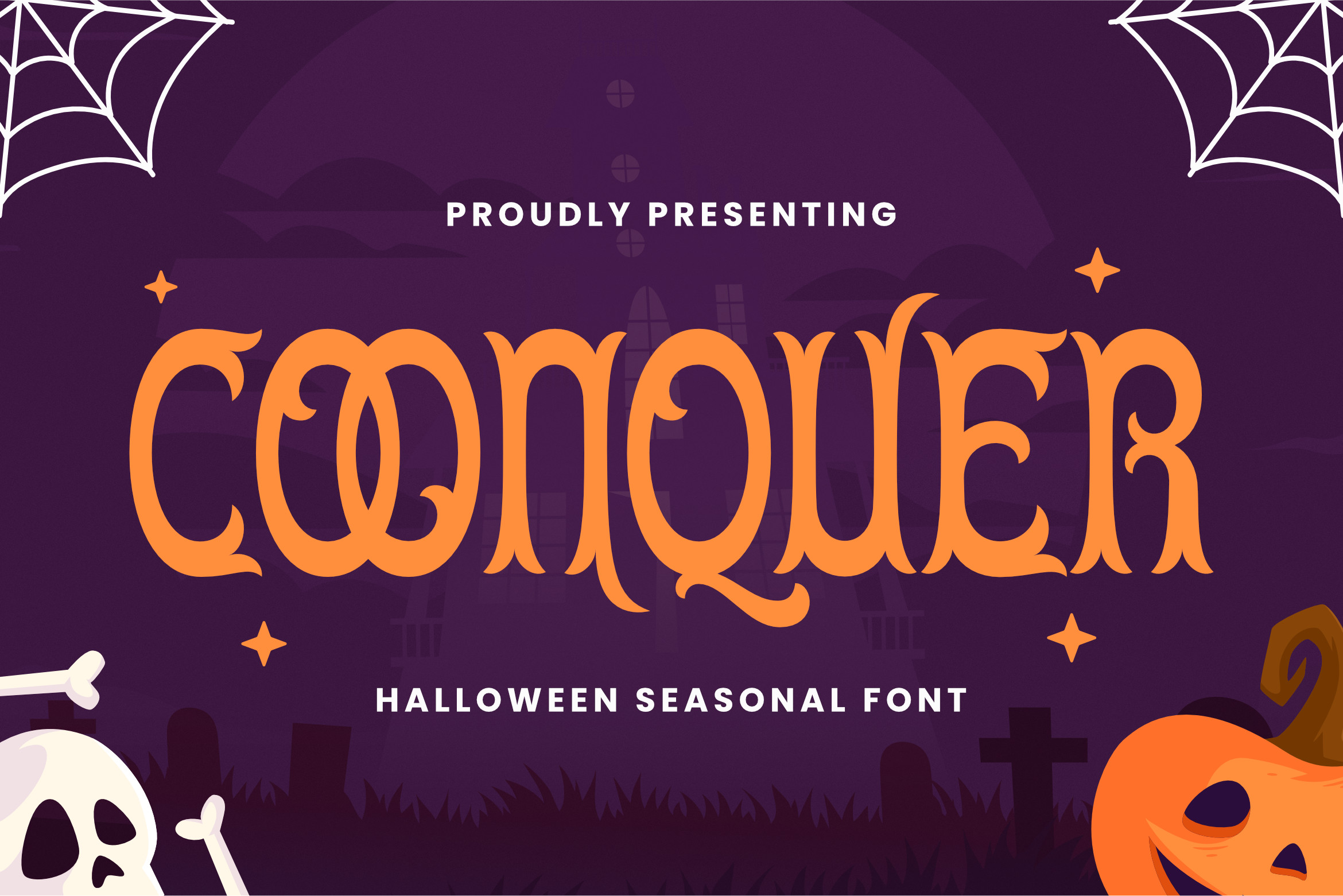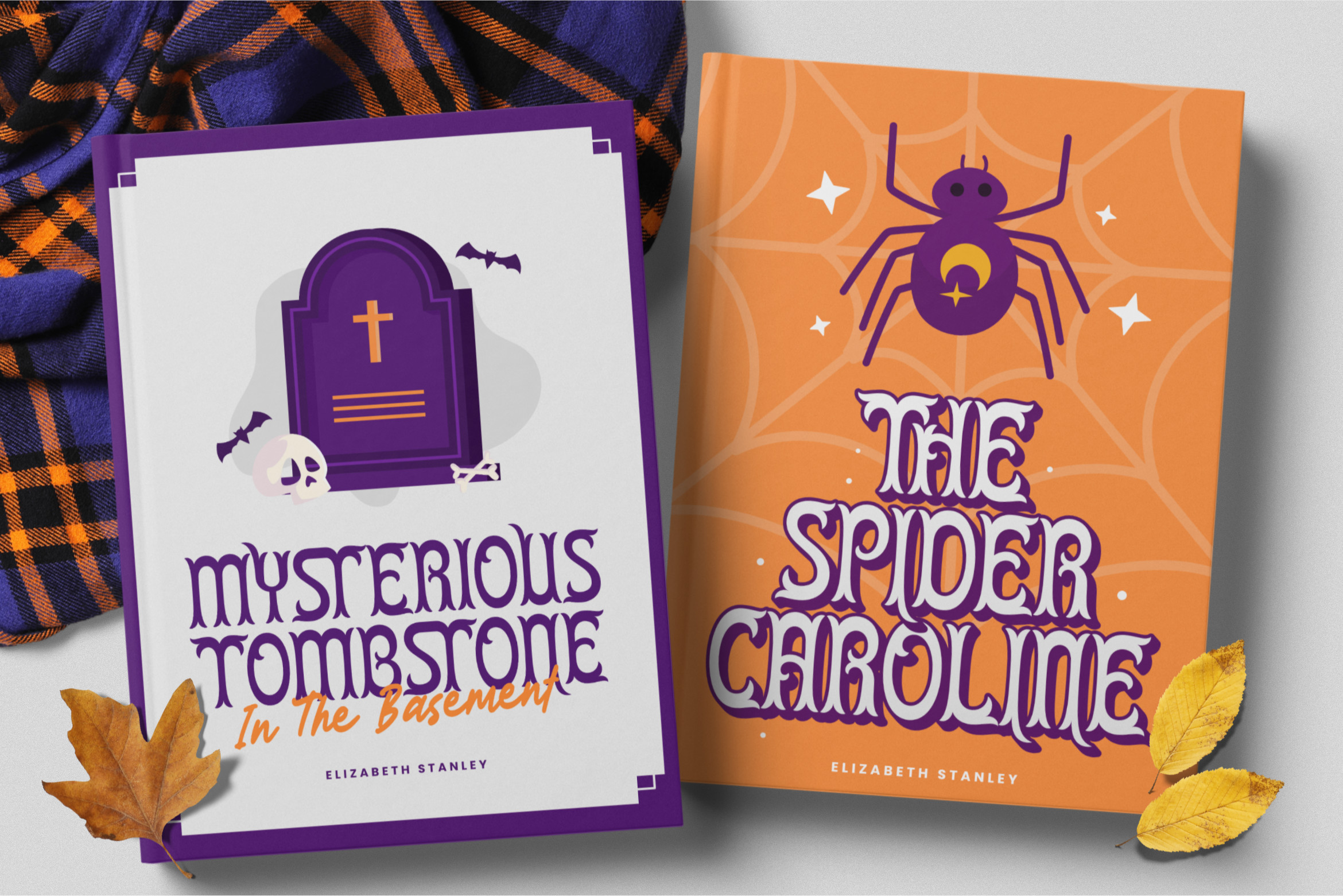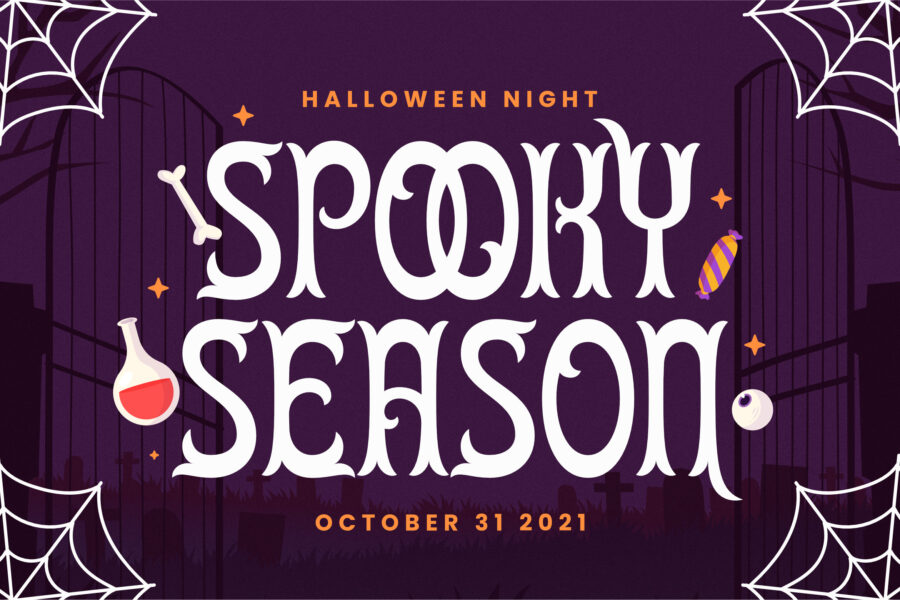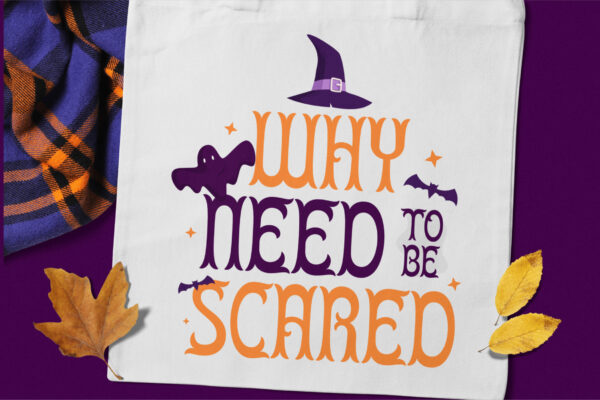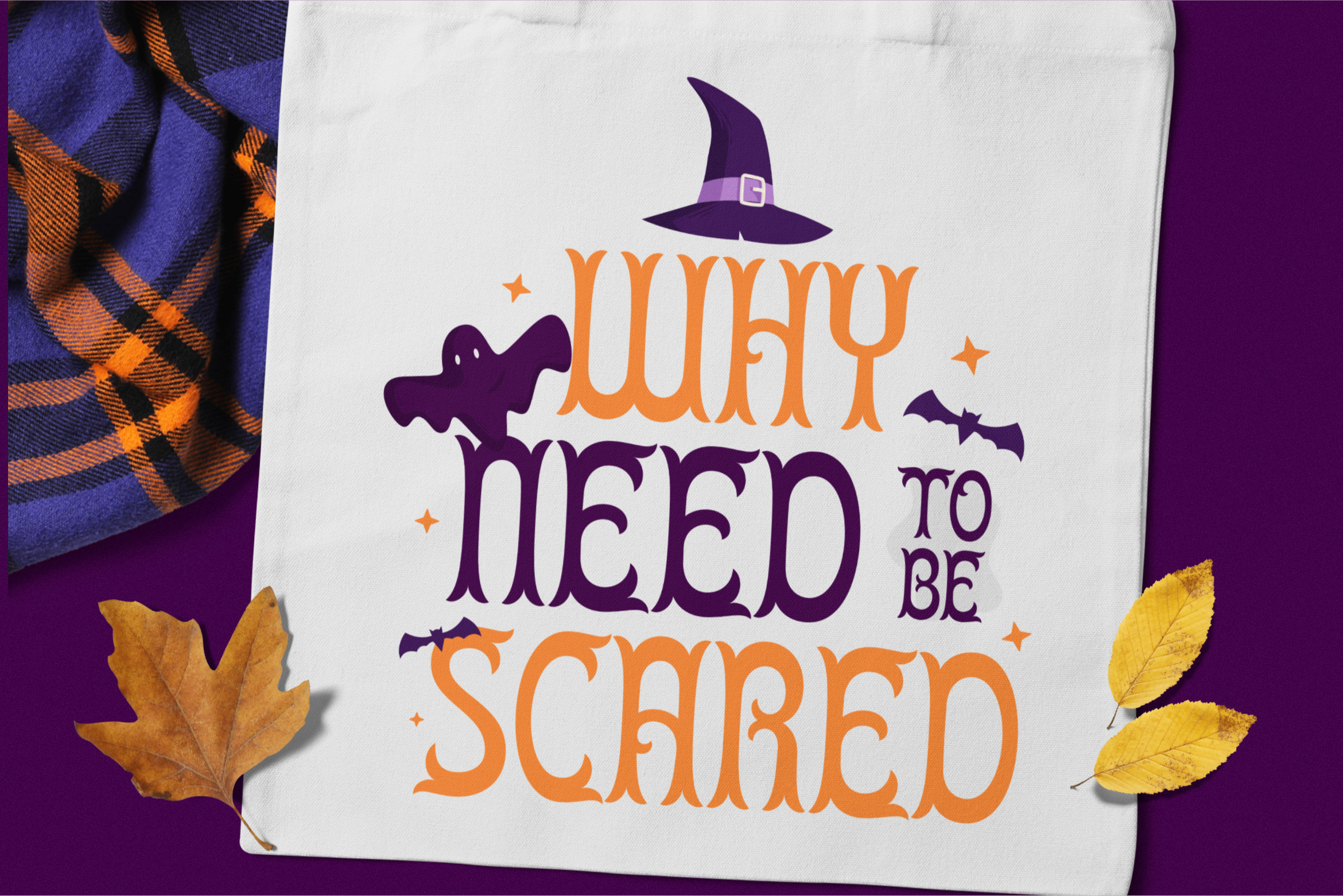
Coonquer is a bold and elegant Halloween seasonal font designed with dramatic gothic flair and quirky personality. Its looping strokes and distinctive alternates make it a perfect choice for spooky book covers, event posters, apparel, and party invitations. With its haunting style and fun spirit, Coonquer strikes a balance between creepy and playful, ideal for family-friendly Halloween visuals or eerie branding needs.
This font includes uppercase and lowercase letters, ligatures, multilingual support, numbers, punctuation, and a variety of alternates for creative flexibility. Whether you’re creating themed merchandise or festive typography art, Conquer will elevate your Halloween designs with a twist of gothic charm and seasonal flair.
Coonquer